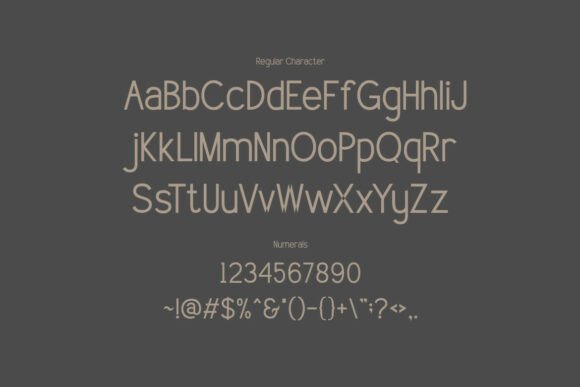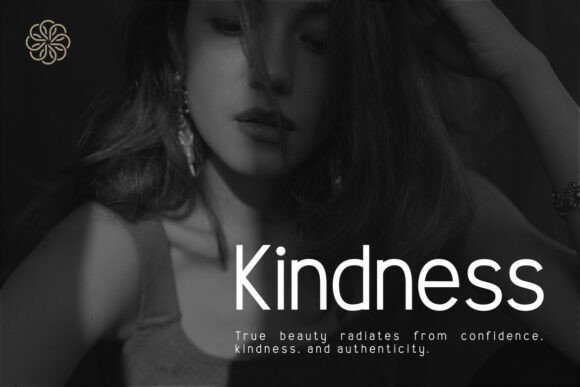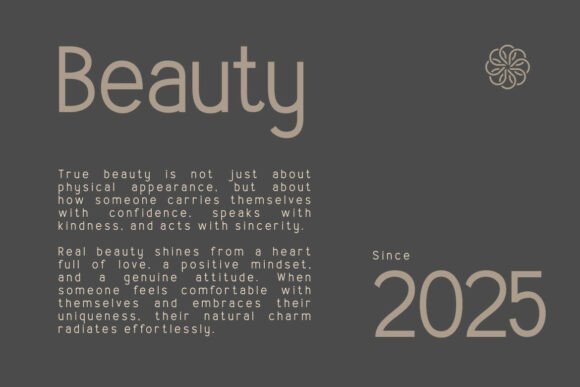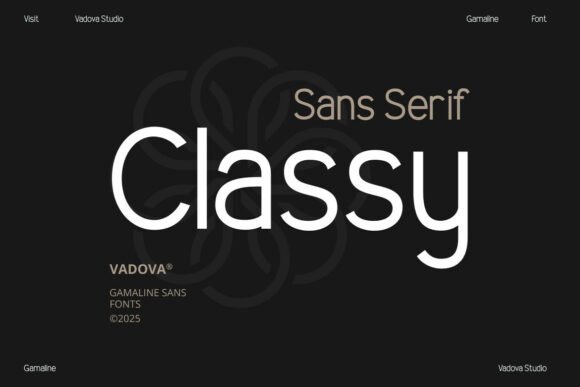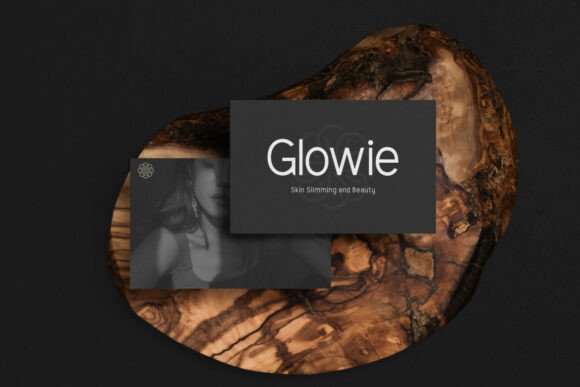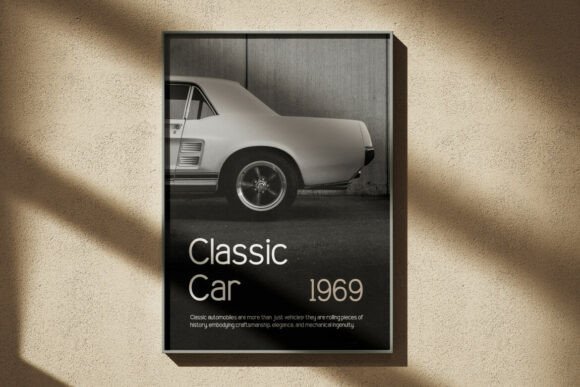
Gamaline Font: Elevate Your Design with Modern Simplicity and Elegance
In the world of typography, fonts play a crucial role in conveying the tone and personality of a brand or design. For designers and crafters seeking a typeface that exudes sophistication, modernity, and elegance, Gamaline Font is an exceptional choice. This classy sans serif font strikes the perfect balance between simplicity and refinement, making it ideal for a wide range of design applications.
What is Gamaline Font?
Gamaline is a thoughtfully crafted sans serif typeface that embodies the essence of modern design while infusing it with a touch of elegance. Its clean lines, balanced spacing, and smooth curves work in harmony to create a sophisticated appearance that is both visually appealing and highly readable. Whether you’re working on digital projects or print materials, Gamaline offers the versatility you need with its comprehensive set of characters, including uppercase and lowercase letters, numerals, and punctuation.
Key Features of Gamaline Font
- Modern Simplicity: Gamaline’s sans serif design ensures a clean and uncluttered look, perfect for contemporary designs that require a fresh and modern feel.
- Elegant Tone: Despite its simplicity, Gamaline carries an elegant tone that elevates the overall appearance of any design, making it suitable for high-end branding and display purposes.
- Full Character Set: The font includes a complete set of uppercase and lowercase letters, numerals, and punctuation, offering designers full versatility for their projects.
- High Readability: The carefully balanced spacing and smooth curves of Gamaline ensure that text remains highly readable, even at smaller sizes.
- Timeless Appeal: Gamaline’s design is not just trendy; it has a timeless quality that ensures your designs remain relevant and stylish for years to come.
Applications of Gamaline Font
Gamaline’s versatility and sophisticated appearance make it suitable for a variety of design applications. Here are some of the areas where Gamaline truly shines:
- Branding and Logo Design: Create a lasting impression with a font that communicates elegance and professionalism.
- Digital Media: Enhance your website, social media posts, and digital advertisements with a modern and elegant typeface.
- Print Design: From business cards and brochures to posters and packaging, Gamaline adds a touch of sophistication to any print material.
- Display Purposes: Use Gamaline to create eye-catching headlines, banners, and titles that demand attention.
Why Choose Gamaline Font?
In a sea of typefaces, Gamaline stands out for its unique blend of modern simplicity and elegance. Here are a few reasons why designers and crafters are gravitating towards Gamaline:
- Unique Aesthetic: Gamaline offers a distinctive look that can help your designs stand out from the crowd.
- Versatility: Its comprehensive character set and adaptable design make it suitable for a wide range of projects.
- Readability: Gamaline’s design prioritizes readability, ensuring your message is communicated clearly and effectively.
- Ease of Use: The font is easy to integrate into your design workflow, allowing you to focus on creativity rather than technicalities.
Gamaline Font is a remarkable addition to the world of typography, offering designers and crafters a tool that blends modern simplicity with elegance. Its versatility, readability, and timeless appeal make it an excellent choice for a variety of design applications, from branding and digital media to print design. By choosing Gamaline, you’re not just selecting a font; you’re elevating your design’s visual identity to new heights of sophistication and style.
Whether you’re a professional designer or a DIY crafter, Gamaline Font invites you to explore new possibilities in typography and design. Experience the impact of a well-crafted typeface on your projects and discover how Gamaline can help you achieve your creative goals with elegance and modernity.